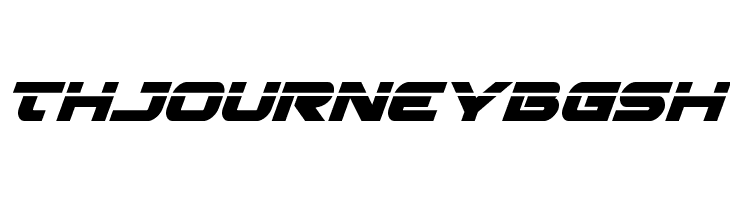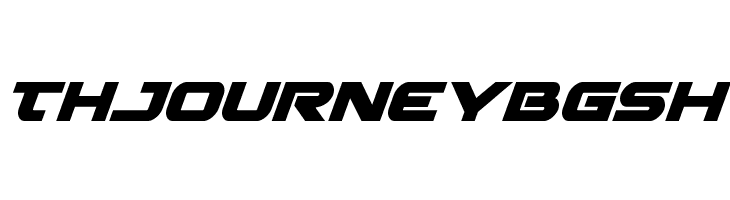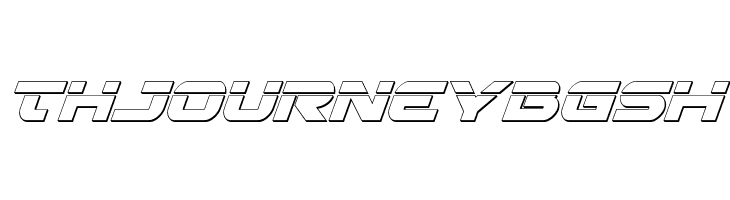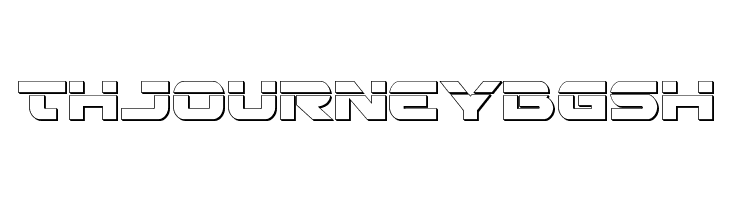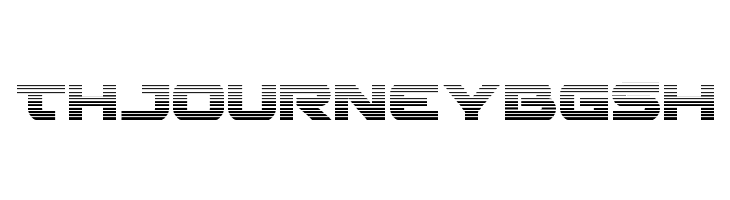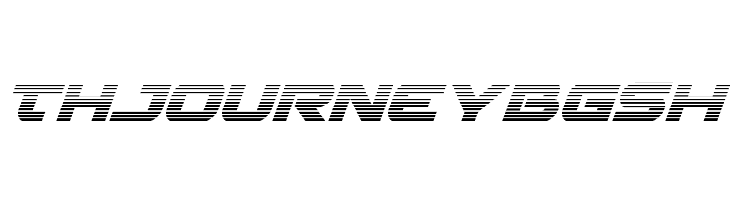
• Gemina Gradient
A futuristic, gradient-style font with horizontal lines and bold, angular characters.
• Gemina Gradient Italic
A futuristic, italicized font with a gradient effect and striped pattern.
• Gemina Halftone
A bold, futuristic font with a halftone effect and geometric design.
• Gemina Halftone Italic
A bold, italicized font with a futuristic halftone effect and dynamic style.
• Gemina Italic
A bold, italicized font with sharp angles and a modern, dynamic style.
• Gemina Laser
A futuristic, geometric font with sharp angles and bold lines.
• Gemina Laser 3D
A futuristic, geometric font with a 3D laser-cut appearance.
• Gemina Laser 3D Italic
A futuristic, italicized font with a 3D effect and angular design.
• Gemina Laser Italic
A futuristic, italic font with sharp angles and a bold, dynamic style.
• Gemina Laser Leftalic
A futuristic, angular font with bold strokes and dynamic slant.